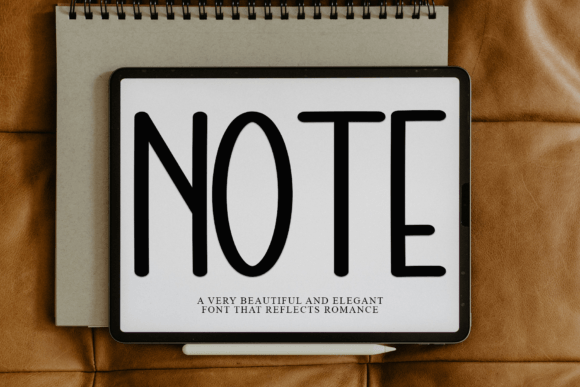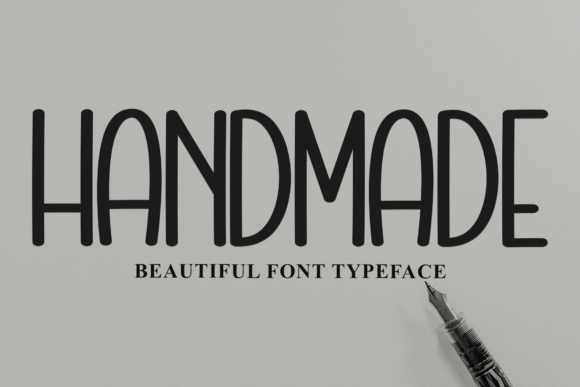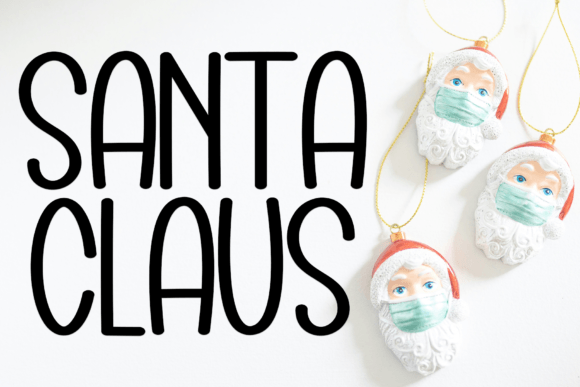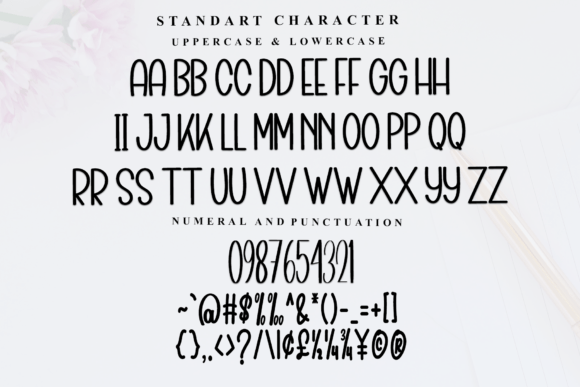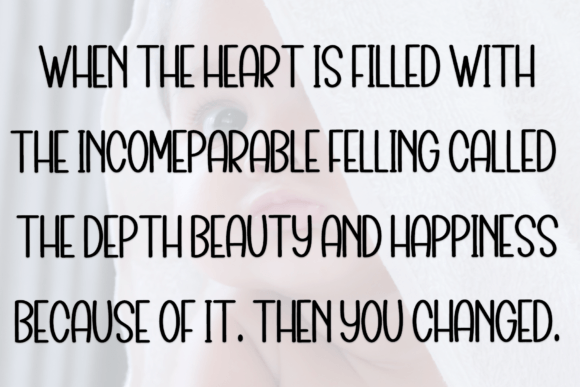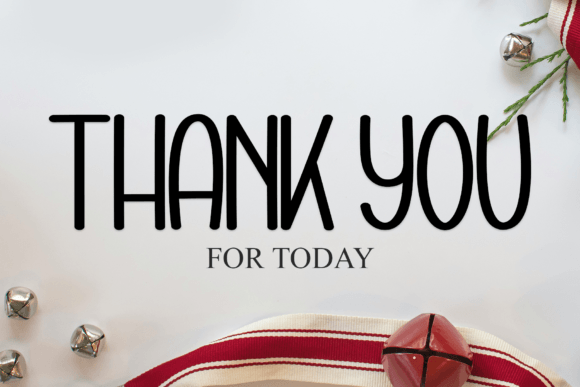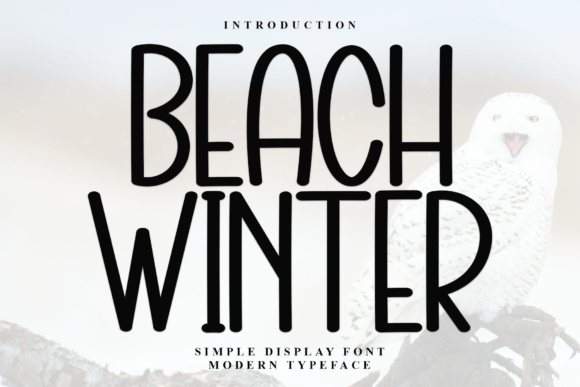
Introducing Beach Winter Font: A Timeless Display Font for Stunning Designs
Are you a designer or crafter looking for a font that can add a touch of elegance and sophistication to your work? Look no further than Beach Winter Font, a lovely and timeless display font that’s perfect for creating eye-catching logos, branding, and quotes.
A Unique and Beautiful Touch
What sets Beach Winter Font apart from other fonts is its unique and beautiful touch. Every letter has been carefully crafted to bring a sense of style and refinement to your designs. Whether you’re working on a logo, a brochure, or a social media post, this font is sure to make your design come alive!
Beach Winter Font is a versatile font that’s perfect for designers and crafters who want to create stunning visual content. Whether you’re working on a:
• Logo design project
• Branding campaign
• Quote or typography poster
• Social media graphic
This font is sure to help you create a lasting impression. Its elegant and refined style makes it perfect for a wide range of design projects, from modern and minimalist to vintage and rustic.
Key Features of Beach Winter Font
Here are some key features of Beach Winter Font that make it a must-have for designers and crafters:
• Timeless and elegant design
• Unique and beautiful touch
• Perfect for logos, branding, quotes, and more
• Versatile and adaptable to different design styles
Beach Winter Font is a stunning display font that’s perfect for designers and crafters who want to create eye-catching logos, branding, and quotes. Its unique and beautiful touch, combined with its PUA coding, makes it a versatile and adaptable font that’s sure to bring a touch of elegance and sophistication to your designs. Download Beach Winter Font today and take your designs to the next level!